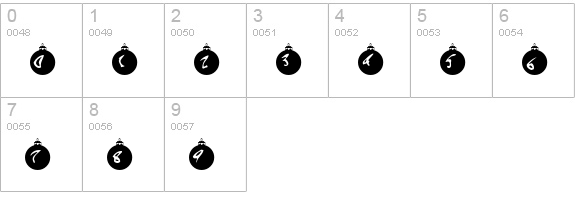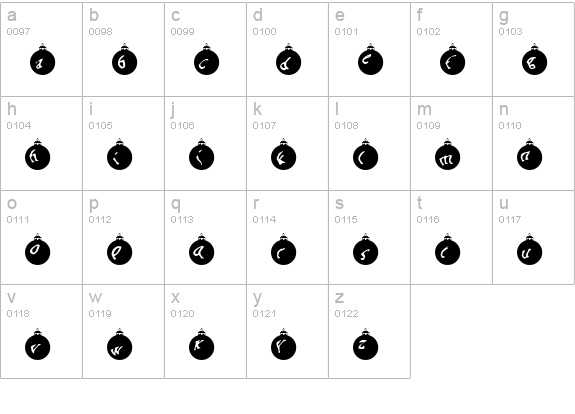
Introducing OrnaMental font, a captivating and intricate typeface that seamlessly blends elegance with a touch of whimsy. This unique font features ornate and decorative elements that make it perfect for adding a special flair to your design projects. The delicate swirls and intricate details of OrnaMental font will instantly elevate any text, making it a stunning choice for invitations, branding, and more. What's even better is that OrnaMental font is available for free download at FontsMarket.com. With its beautiful design and versatility, this font is a must-have addition to your collection. Whether you're a designer looking to add a creative touch to your projects or simply someone who appreciates beautiful typography, OrnaMental font is sure to impress. Download it today and let your creativity shine with this enchanting typeface.